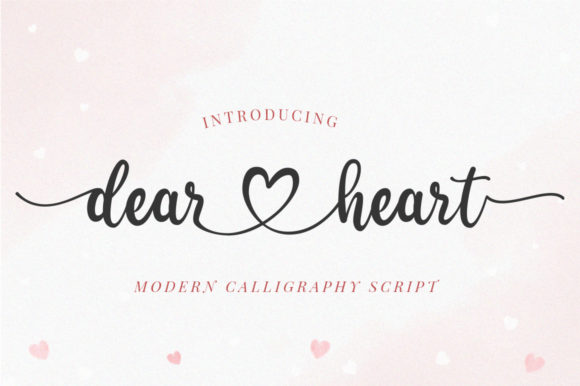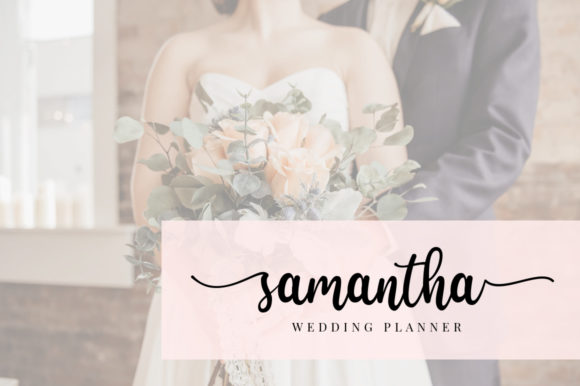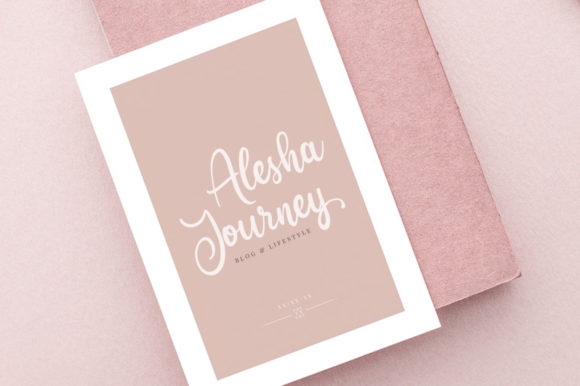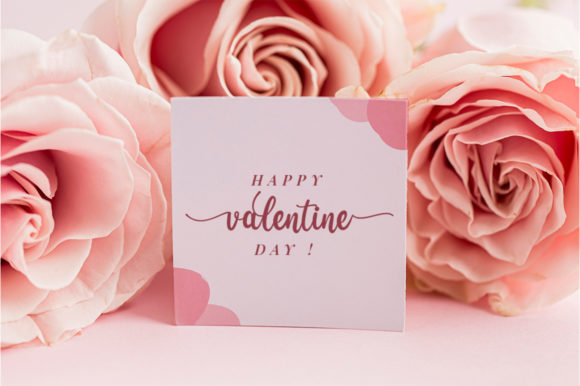
Dear Heart Font: Romantic Handwritten Script for Wedding Design
About the Dear Heart Font
Elevate your designs with Dear Heart Font, a font that combines sophistication with readability. Dear Heart is a romantic handwritten font. Perfect for writing Valentine’s Day letters or invitations, this font will most certainly elevate your designs. This font is PUA encoded which means you can access all of the glyphs and swashes with ease!
Dear Heart’s expressive, romantic style is ideal for projects requiring a touch of handwritten charm. It works exceptionally well in short text applications such as logos, wedding invitations, social media graphics, and short headlines. Avoid using it for large bodies of text or UI elements where readability is paramount; its script nature can hinder legibility in extended use.
Pairing Dear Heart with a clean sans-serif like Montserrat for body copy creates a balanced and harmonious visual hierarchy. Alternatively, a delicate serif font such as Lora could enhance its romantic feel for projects needing both elegance and readability. For a more modern touch, consider pairing it with a geometric sans-serif font.
Its core personality is undeniably romantic and soft, conveying warmth and intimacy. Brands focusing on love, beauty, weddings, or artisanal products will find it particularly suitable.